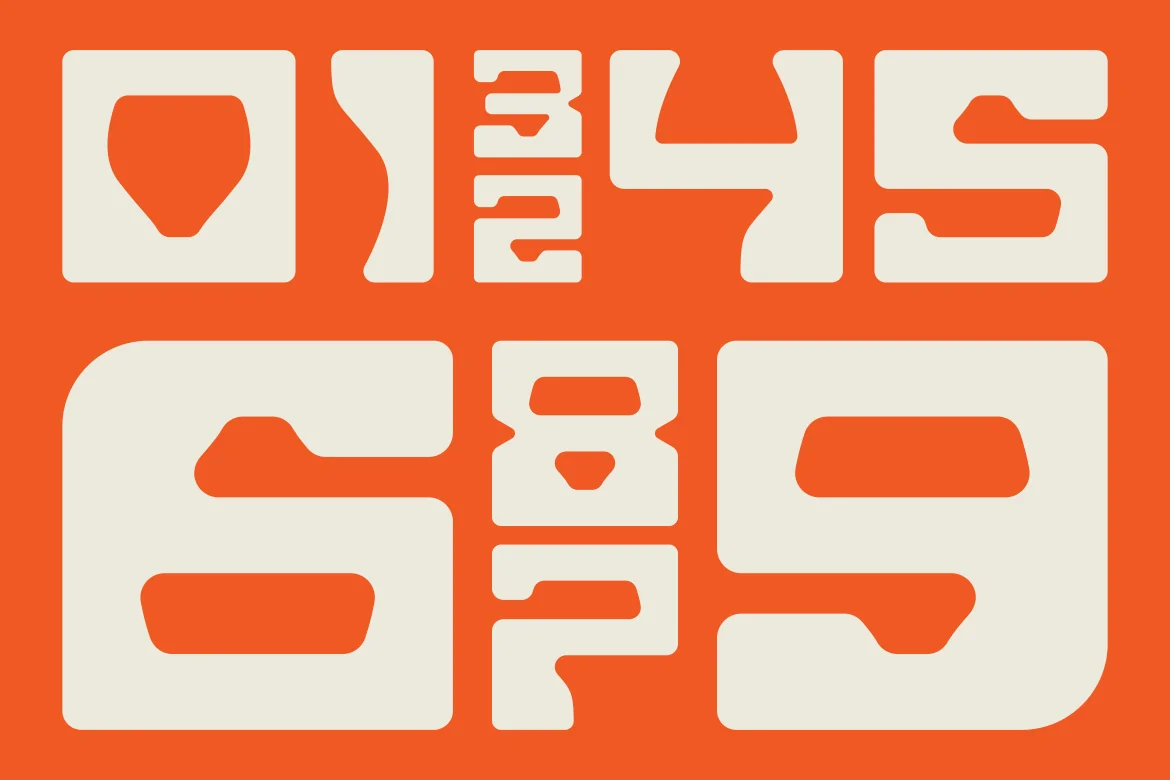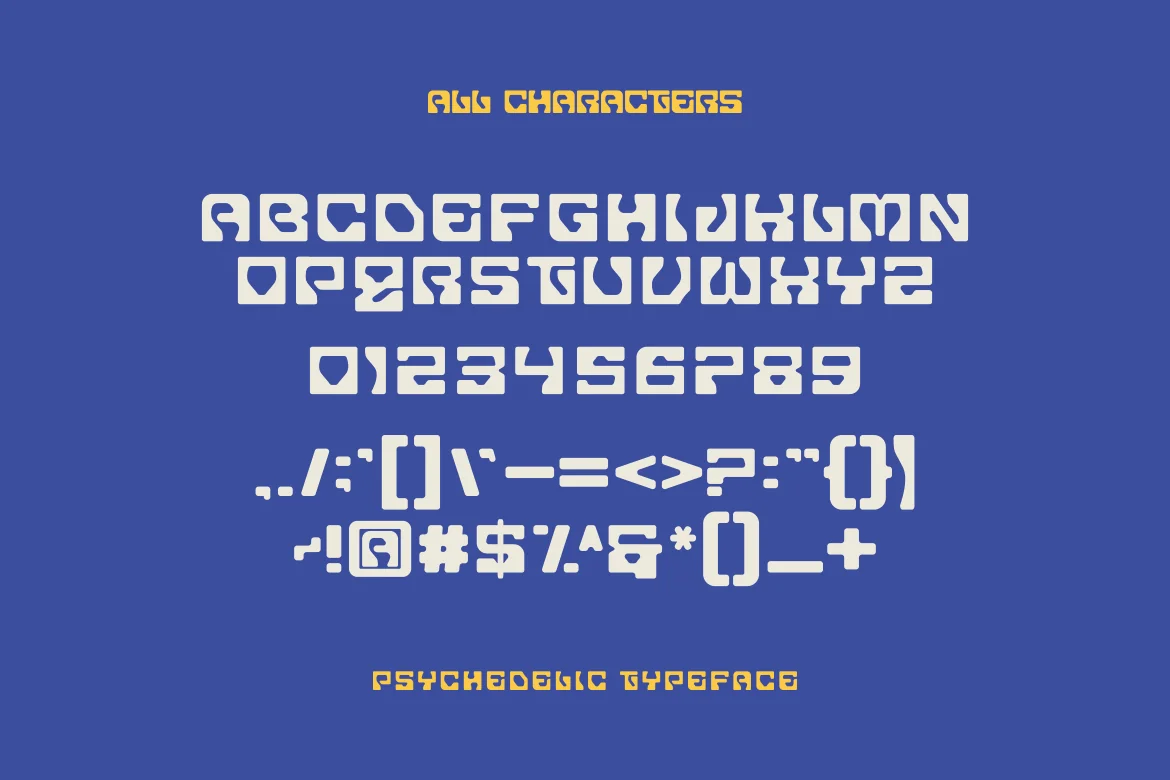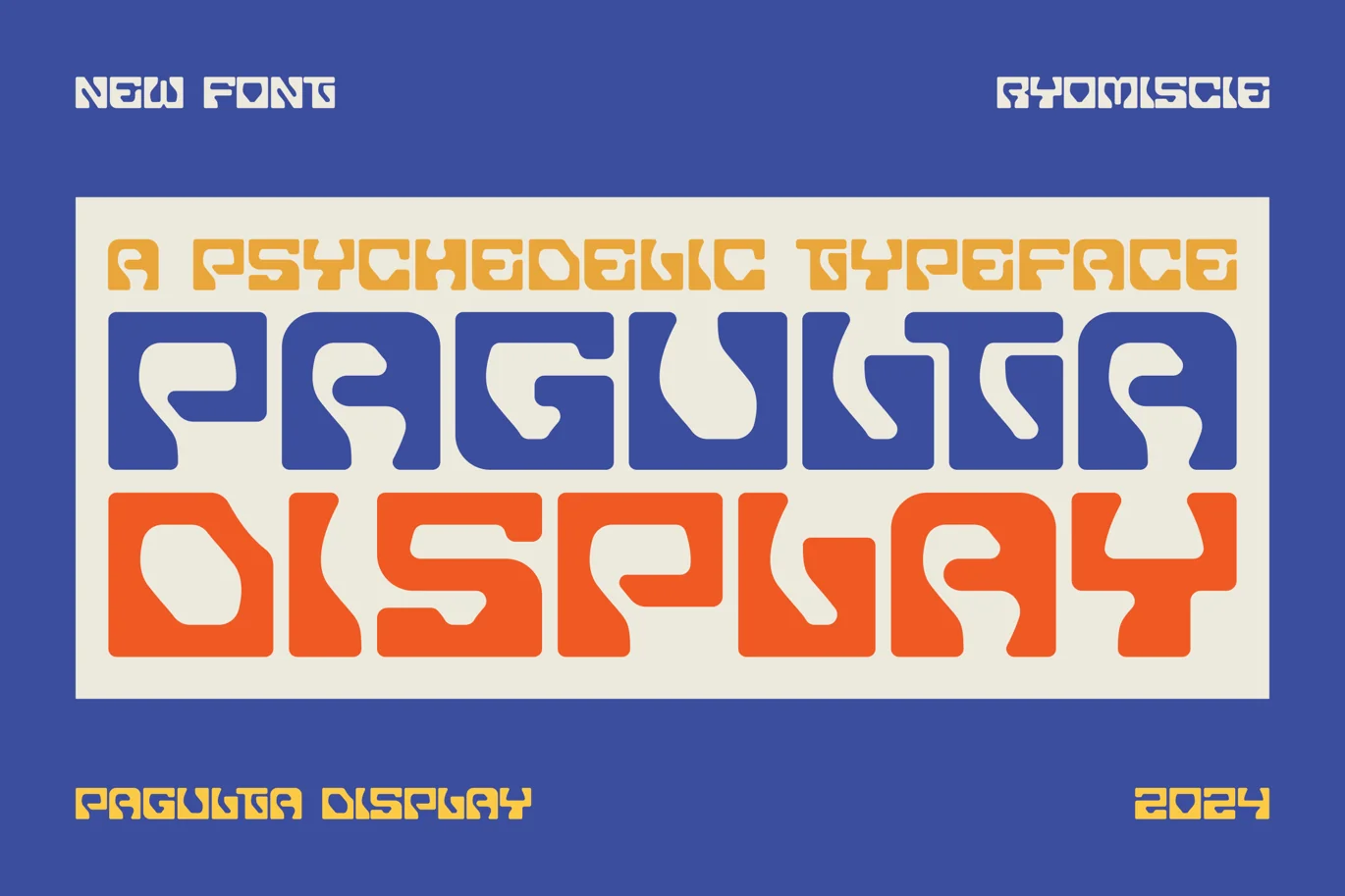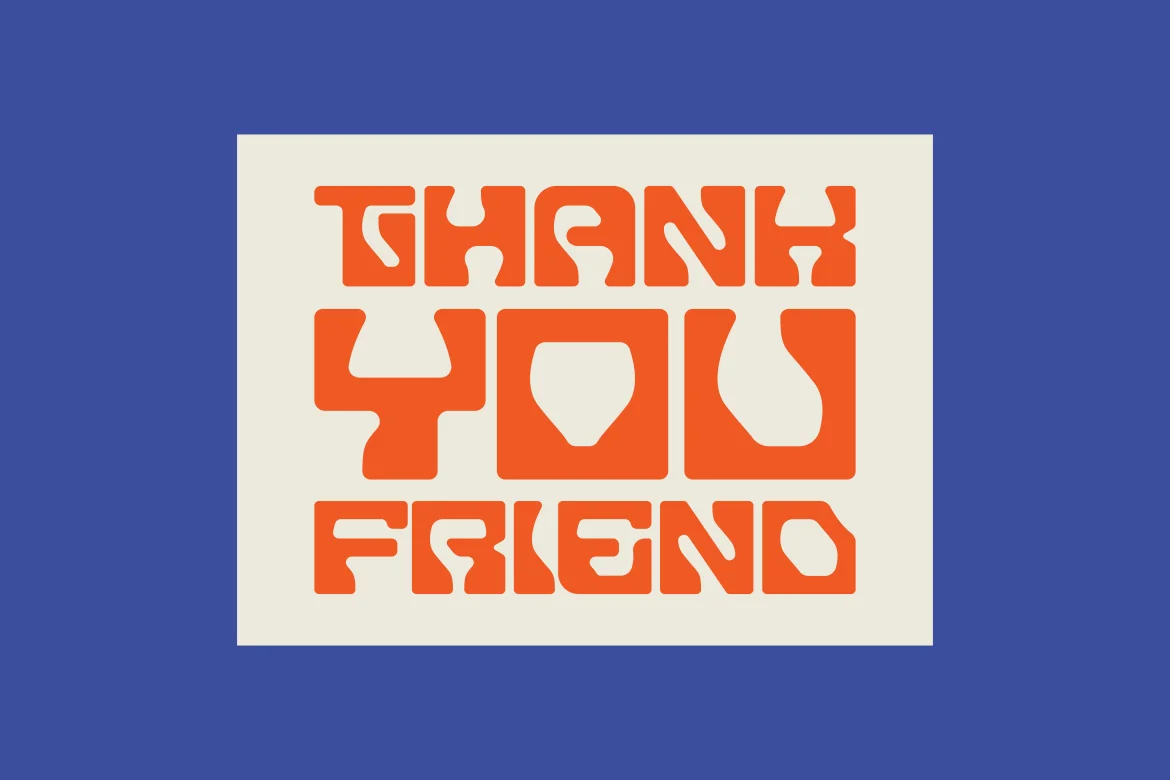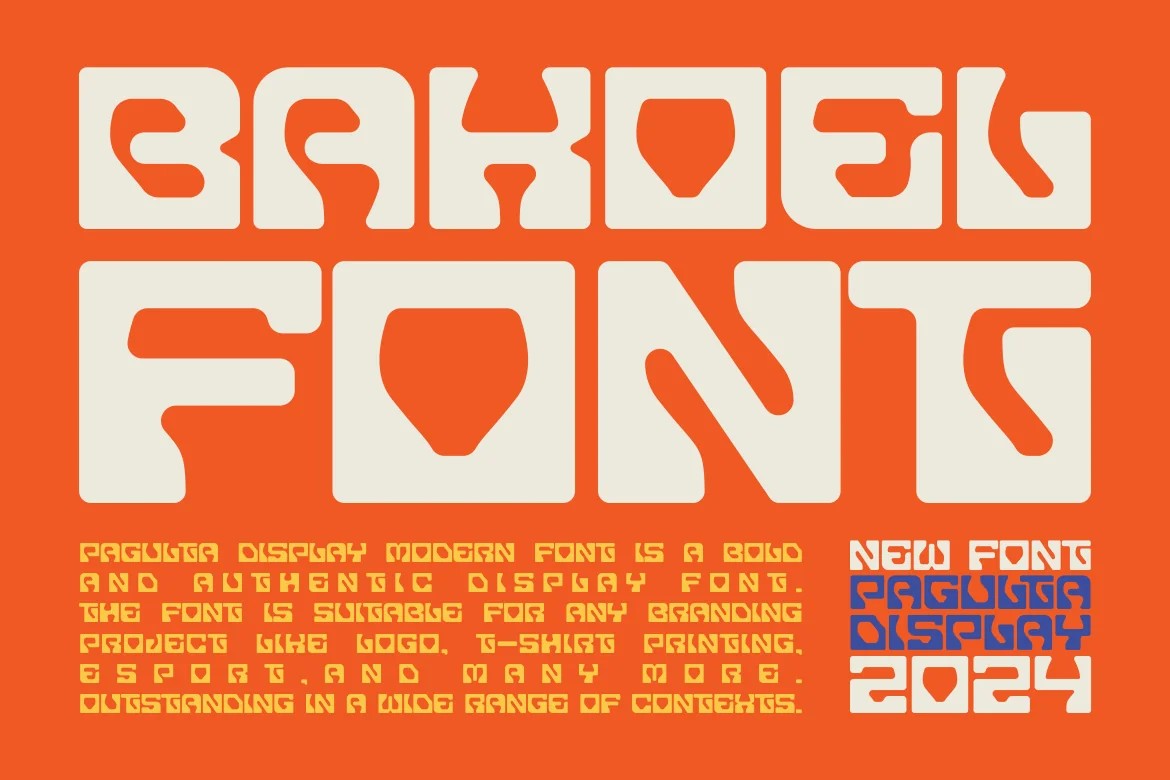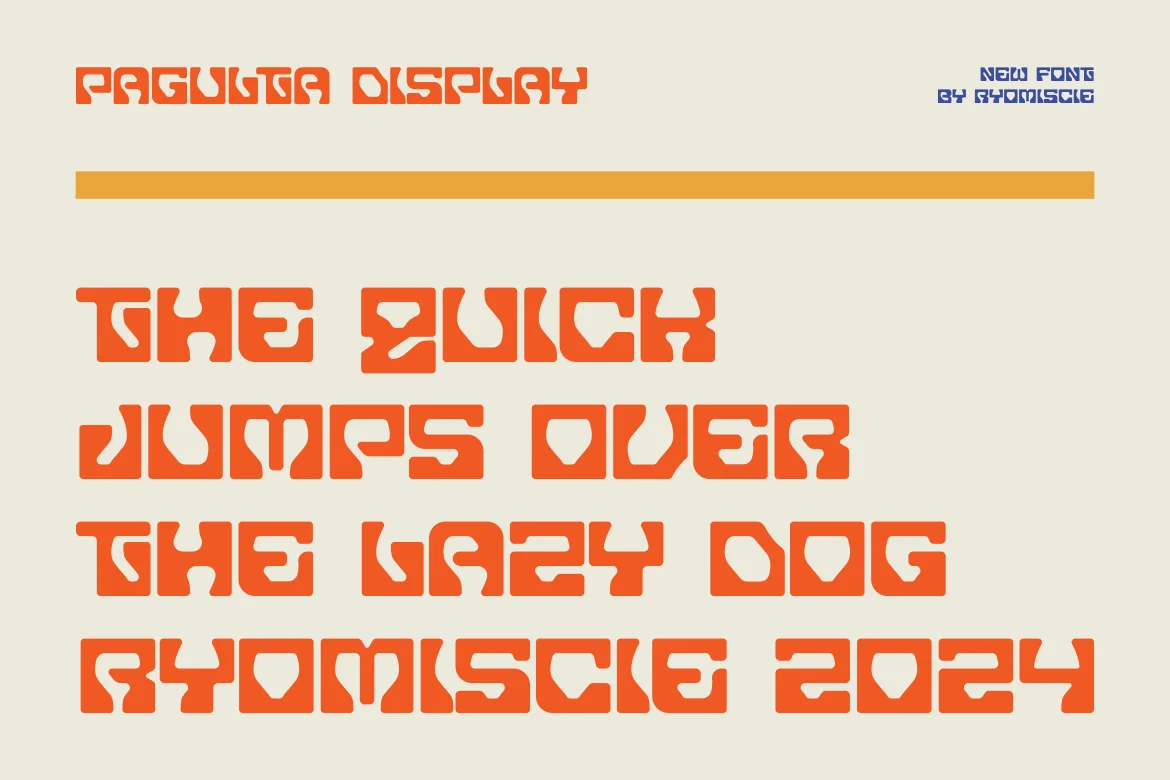
Pagulta Display – Modern Psychedelic Typeface
Introducing our new product Pagulta Display Font – Modern Psychedelic Typeface
Pagulta Display Font – Modern Font is a bold and authentic display font. The font is suitable for any branding project like logo,
t-shirt printing, esport, and many more. outstanding in a wide range of contexts.